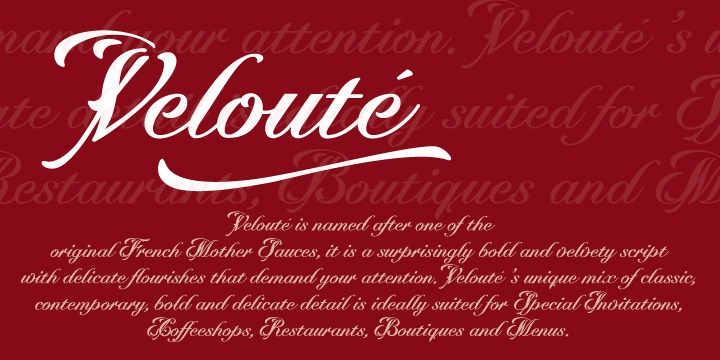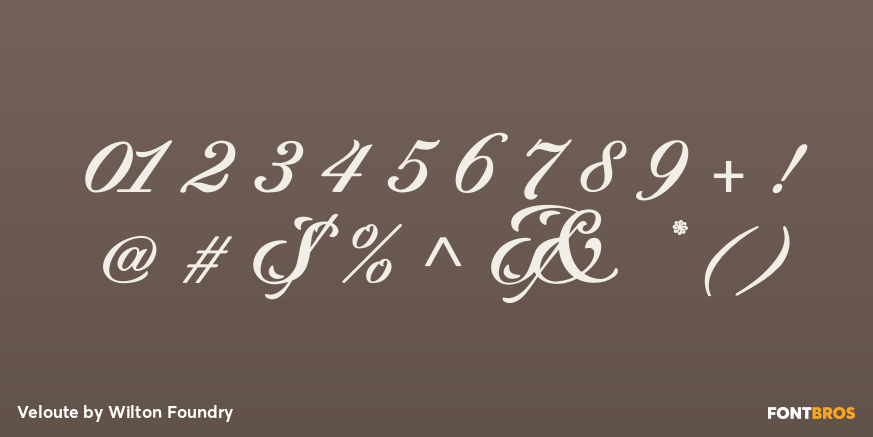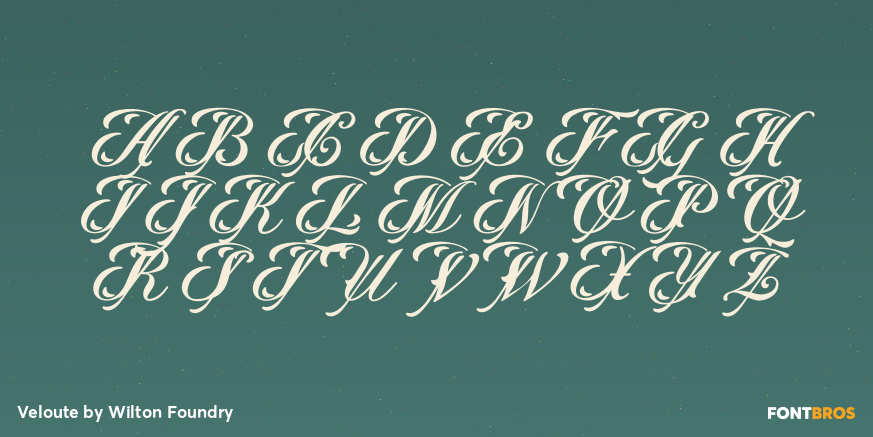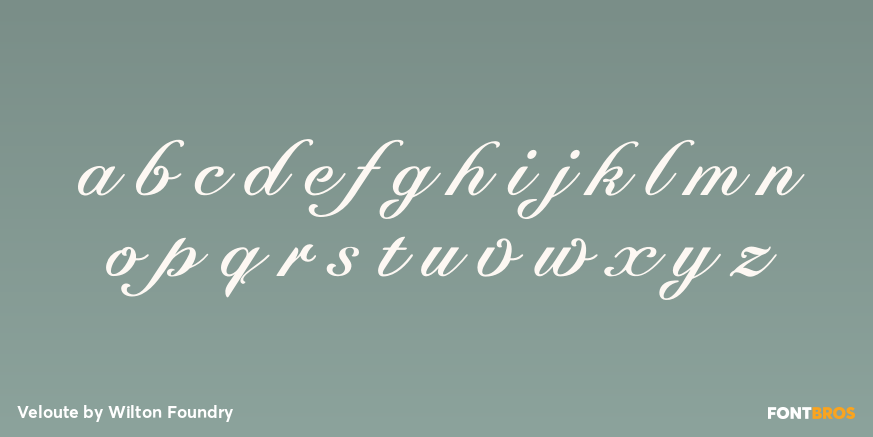
Veloute
Font Family by Wilton Foundry
Veloute is a formal script font family with a refined, flowing look that feels elegant and composed. Its calligraphic character gives layouts a polished, decorative presence, making it a strong choice when you want lettering that reads as graceful rather than casual.
Offered as a single style from Wilton Foundry, this design is well suited to invitations, branding, packaging, certificates, and other display settings where a classic script voice can carry the visual mood. With 300 glyphs included, it offers a solid character set for designers who want expressive script styling in a focused, straightforward package.